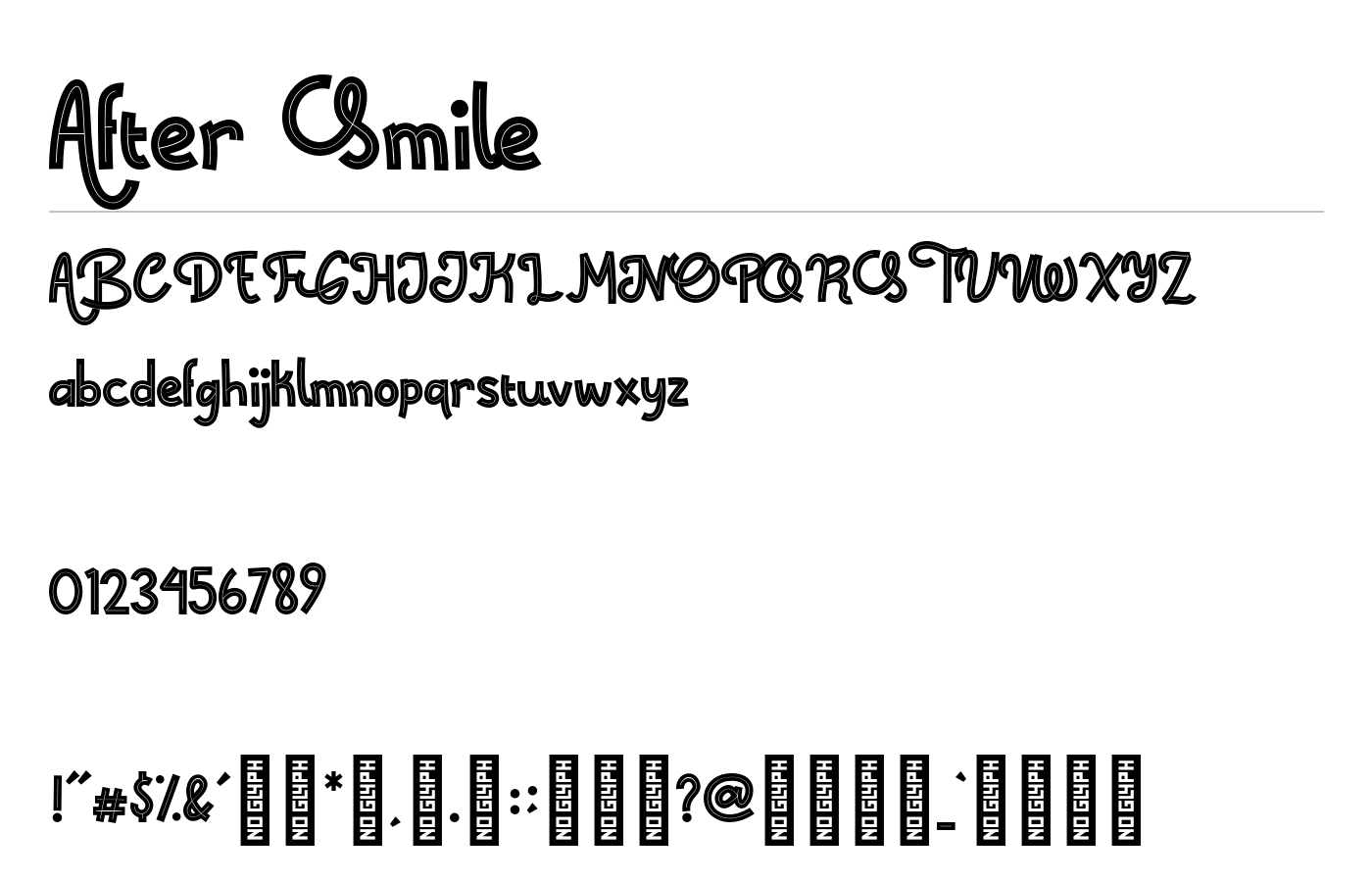
After Smile is a playful and quirky sans serif font with rounded, slightly condensed letterforms and a hand-drawn feel. Its unique mix of double-story and single-story characters, combined with whimsical curves and a medium x-height, makes it perfect for fun, informal designs like children's books, logos, and casual branding. This font brings a lively, friendly personality that works well for projects seeking a cheerful and approachable tone.
After Smile Font
About After Smile Font
| Font family | After Smile Font |
| Designer | Heloyud |